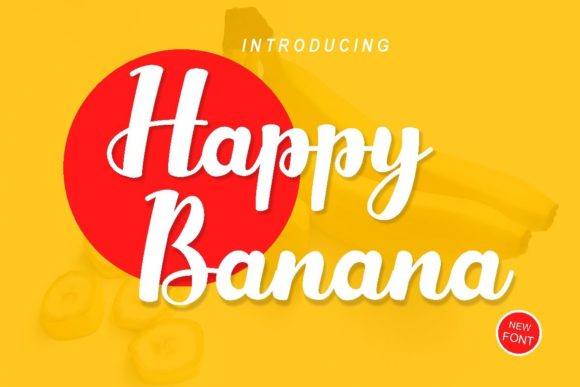
Introducing the Happy Banana font, a beautiful and elegant script font that will add a touch of sophistication and charm to your wedding videos. This font is perfect for creating save-the-date cards, invitations, thank-you cards, and any other wedding-related stationery. With its flowing lines and delicate serifs, the Happy Banana font will make your wedding videos look absolutely stunning.
This font is perfect for any type of wedding video. Whether you're creating a romantic montage of your special day or a fun and lighthearted video of your reception, the Happy Banana font will add an extra touch of magic to your film.
And because it's a script font, it's perfect for adding a personal touch to your wedding videos. You can use it to create custom titles and credits, or even to add your own handwritten messages to your videos.